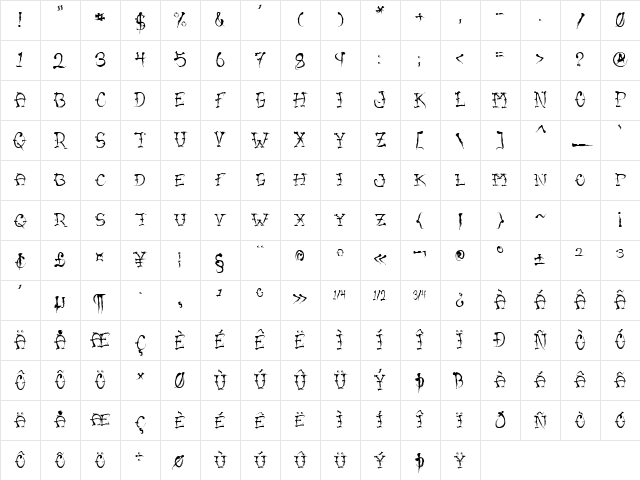
VTC-SumiSlasherOne Small Caps Free Font
VTC-SumiSlasherOne Small Caps
Style: Small Caps
Foundry: WolfBainX- Larry E. Yerkes, Vigilante Typeface Corporation
Designer: WolfBainX-Larry E. Yerkes, Vigilante Typeface Corporation.
Design Context for VTC-SumiSlasherOne
VTC-SumiSlasherOne is a composed and adaptable typeface that performs quietly and consistently across a wide range of design contexts.
Who designed the VTC-SumiSlasherOne Small Caps font?